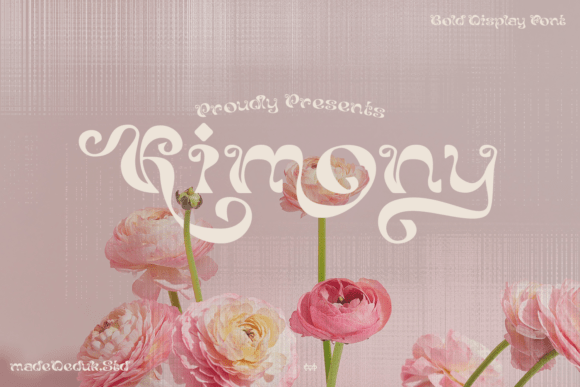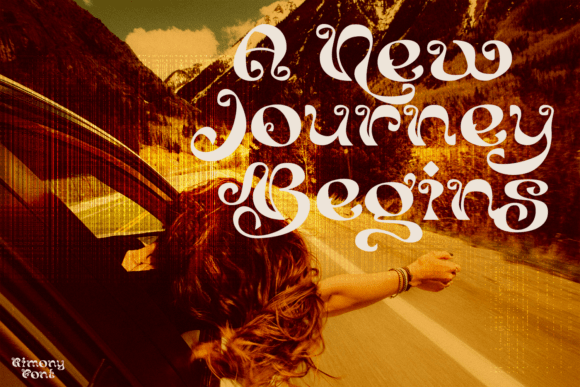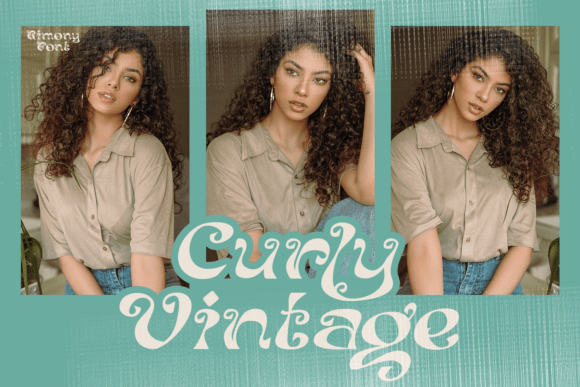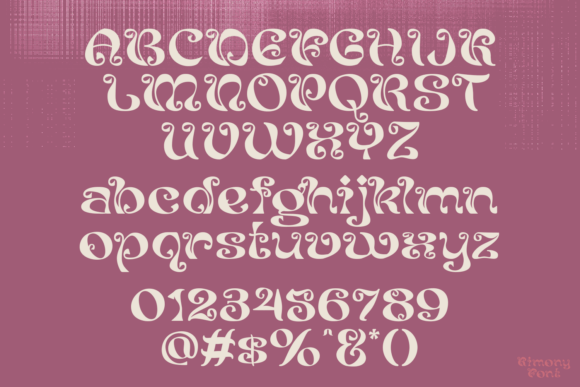
Kimony Font: A Bold Retro Serif for Eye-Catching Display & Logo Design
About the Kimony Font
Meet Kimony Font, a stunning font that brings a touch of elegance and professionalism to any design. Kimony feels playfully nostalgic and delivers an incredible vintage aesthetic. Use this serif font to add that special retro touch to any design idea you can think of!
Kimony’s playful vintage aesthetic makes it ideal for headlines, short text blocks on posters, branding elements like logos or packaging for retro-themed products, and even short social media captions. However, its character and relatively high x-height make it less suitable for body text or lengthy paragraphs, and its ornate details might prove challenging for UI elements requiring high readability.
Its nostalgic charm pairs well with clean sans-serif fonts like Montserrat or Open Sans for a balanced contrast, creating a modern yet retro feel. For a more vintage-inspired look, consider pairing it with a complementary serif like Playfair Display or a script font like Great Vibes, depending on the desired level of formality.
Kimony projects a friendly, slightly whimsical personality, best suited for brands aiming for a nostalgic or retro-inspired aesthetic—think vintage clothing stores, coffee shops, or artisanal food brands. The font’s energy is undeniably cheerful without being overwhelming.
Kimony Font Usage Examples
Kimony Font Example